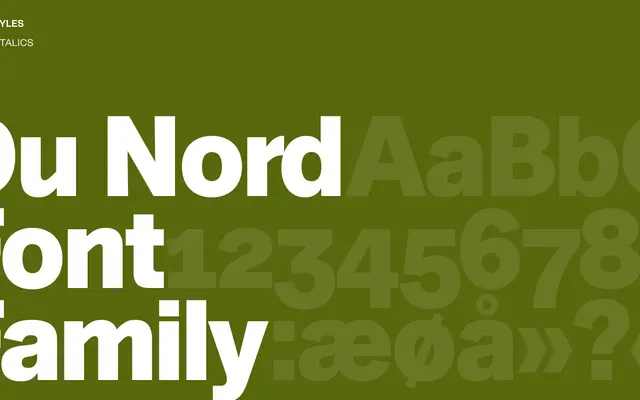
Du Nord
A serif from Playtype with an atmospheric, literary character, presented through a narrative fragment about ambivalence and seduction.
Playtype present Du Nord through a short piece of prose rather than specimen text, framing the typeface around a character drawn back reluctantly into something compelling. The approach suggests a design with personality suited to editorial or narrative contexts. Technical details including weights, italics and language coverage are not disclosed on the page.
The page offers minimal technical detail, but the name and atmospheric framing suggest a refined, literary serif suited to editorial contexts, consistent with contemporary serif conventions.